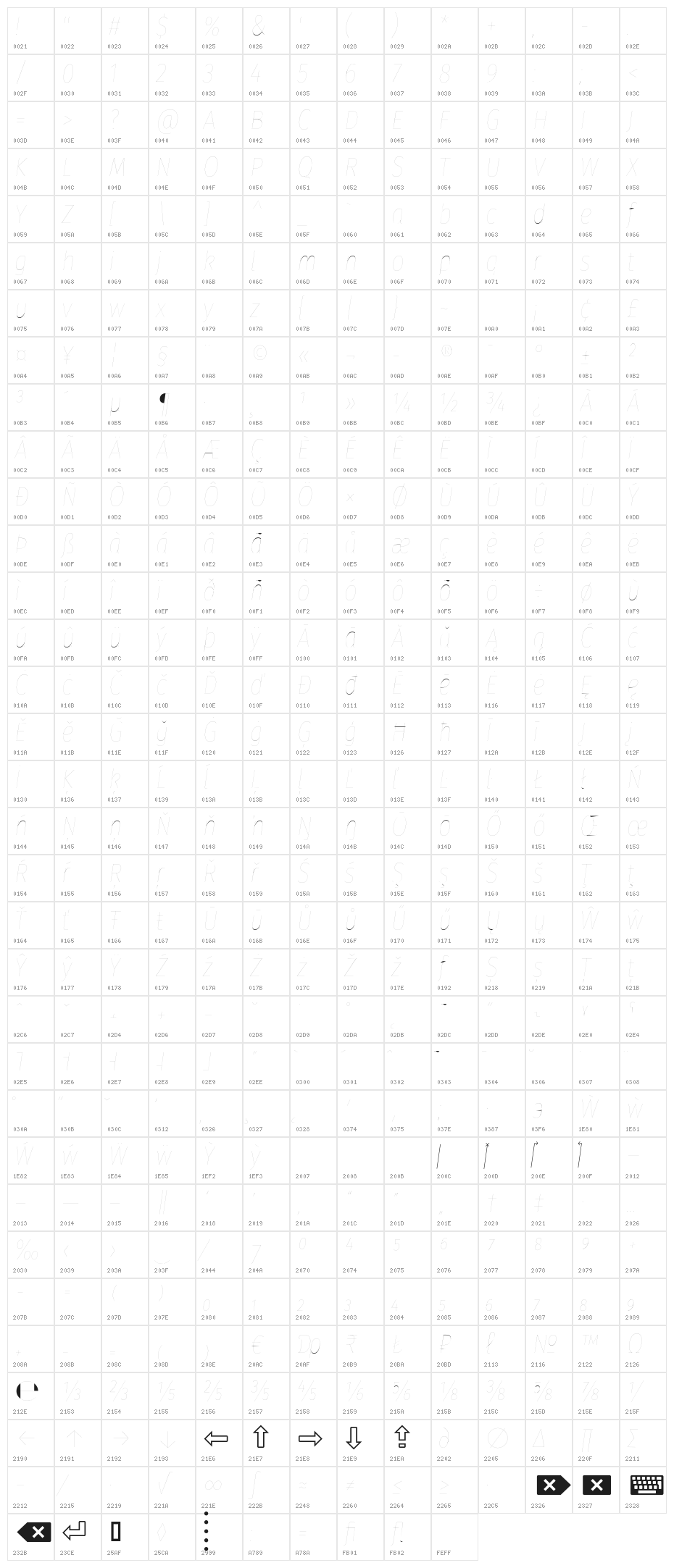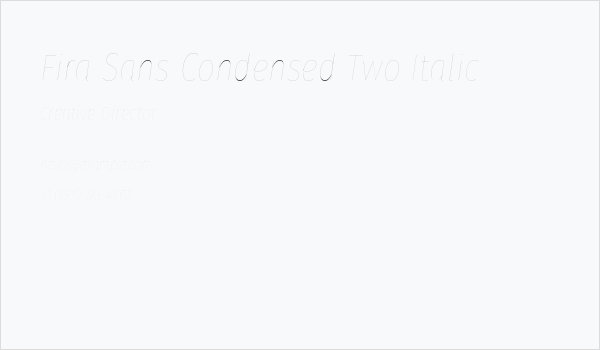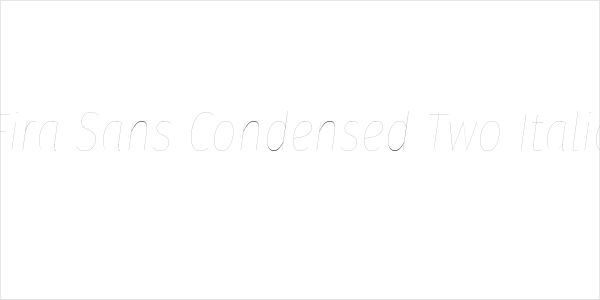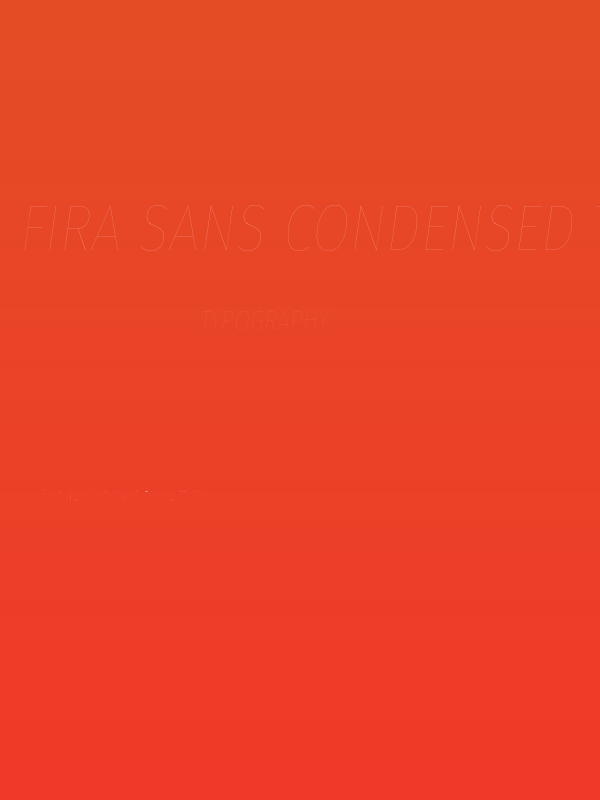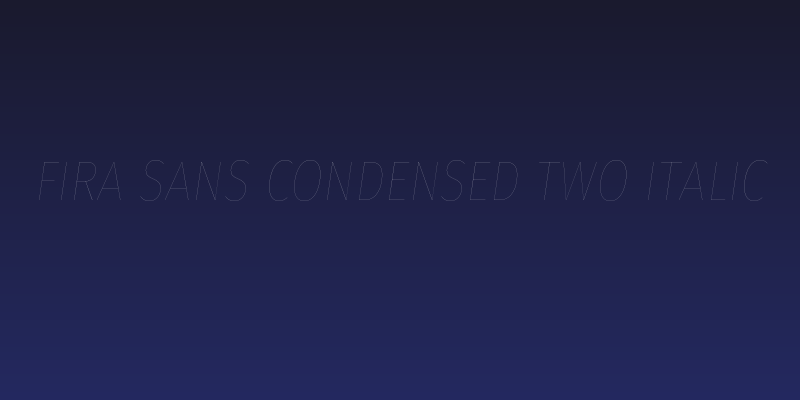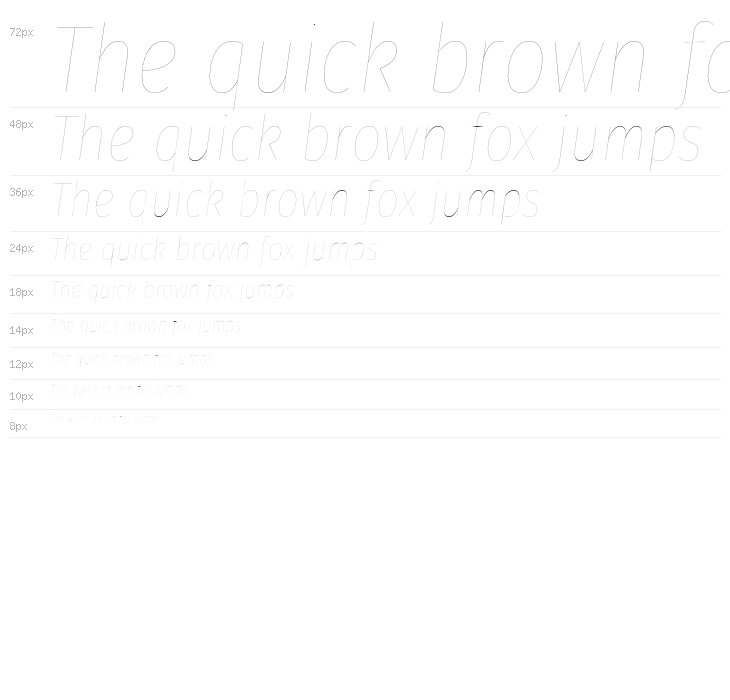
Fira Sans Condensed Two Italic Font
Fira Sans Condensed Two Italic Description
This font exhibits a sleek and modern design with a condensed structure, offering a streamlined and efficient look. The italic style adds a dynamic and forward-leaning appearance, enhancing its contemporary feel. The characters are well-proportioned, maintaining clarity and readability even in smaller sizes. The strokes are consistent in thickness, providing a uniform and harmonious visual experience. This font is versatile, suitable for both digital and print media, and can effectively convey a sense of professionalism and modernity.